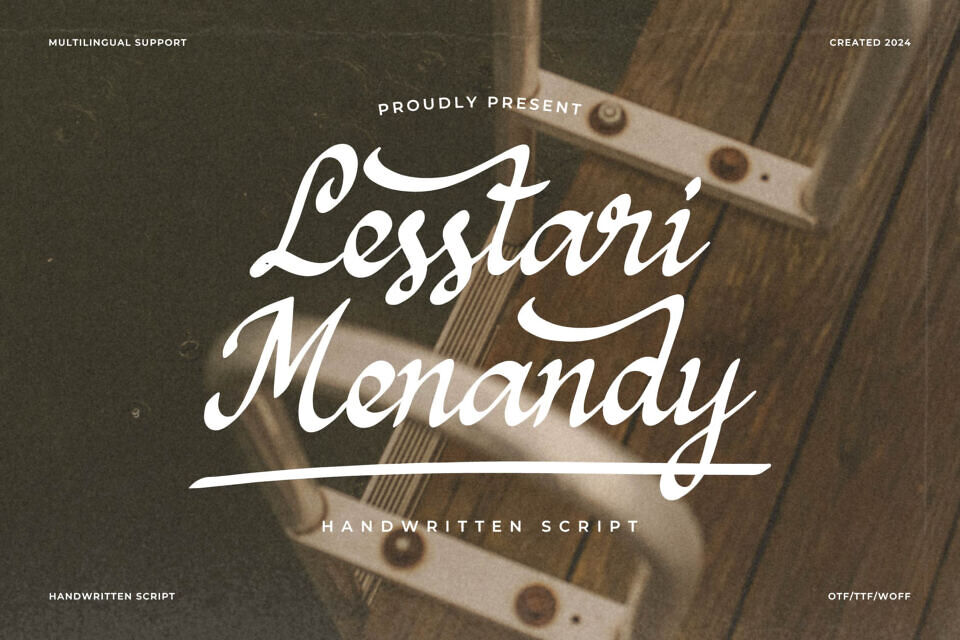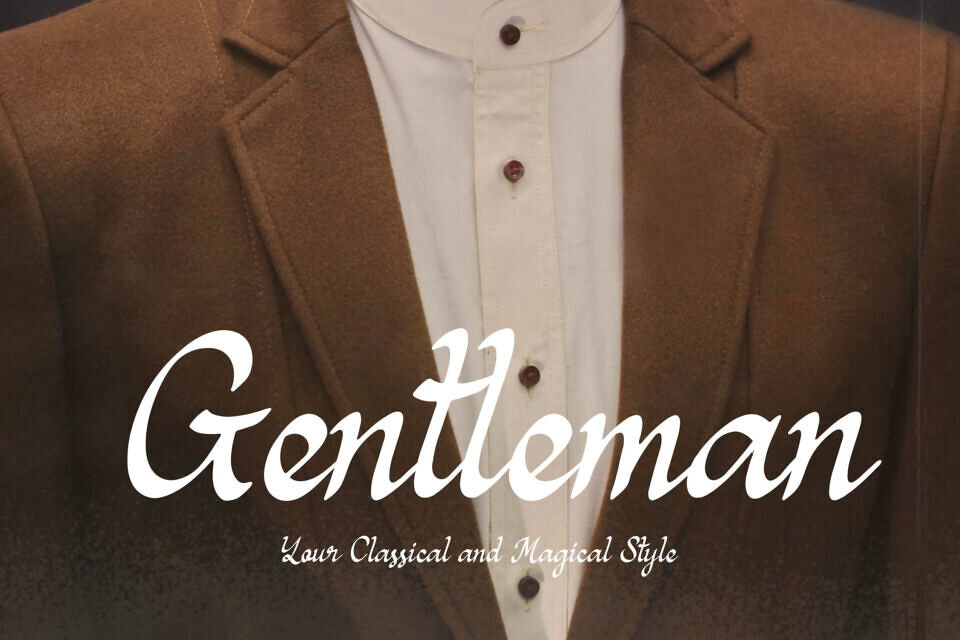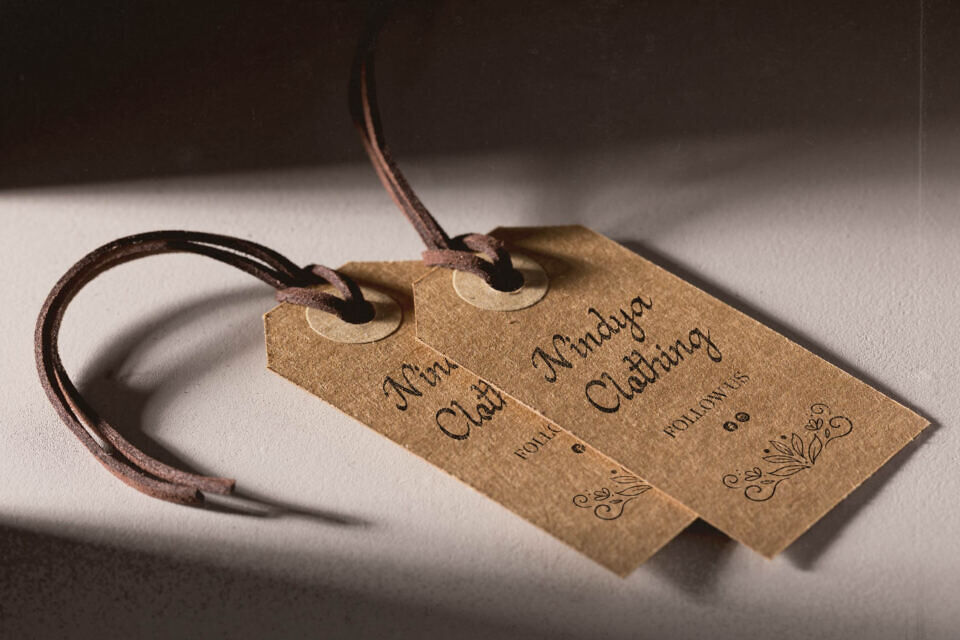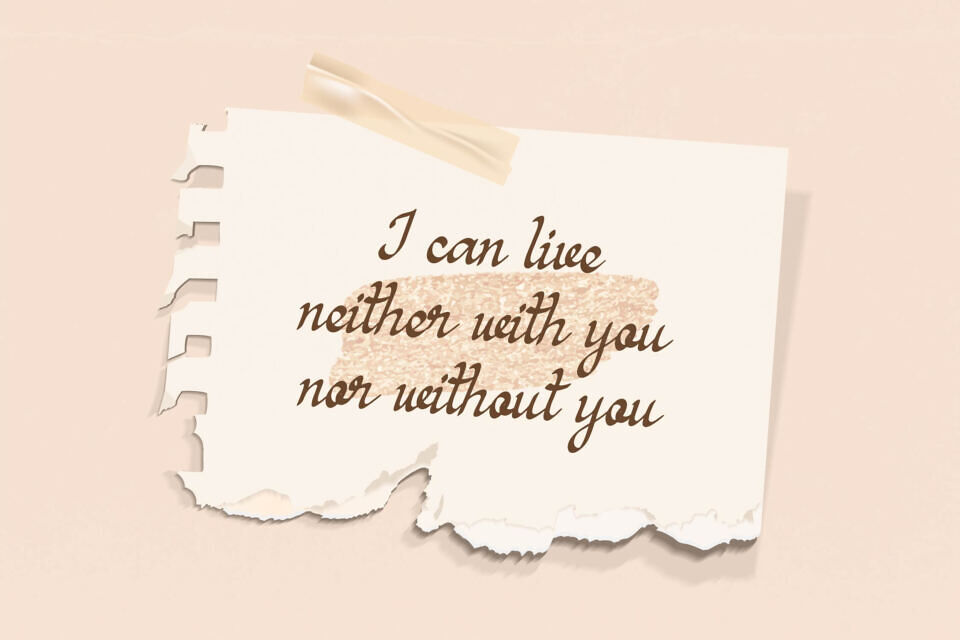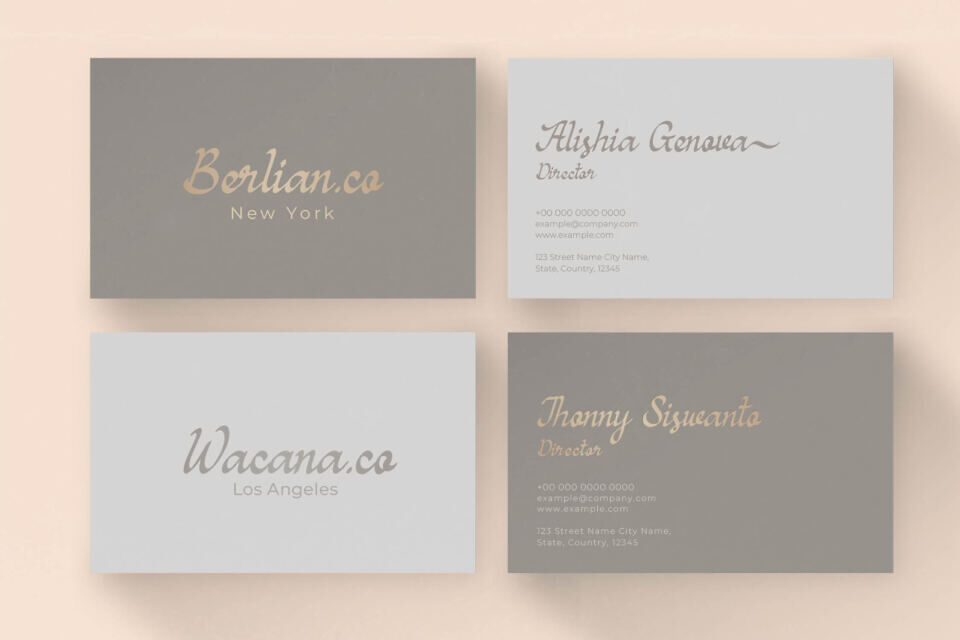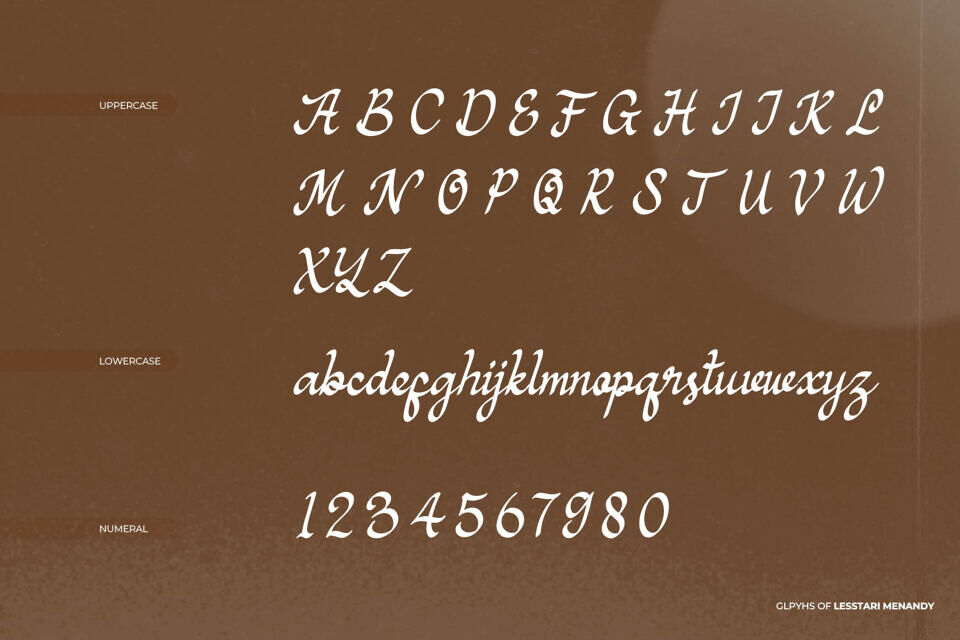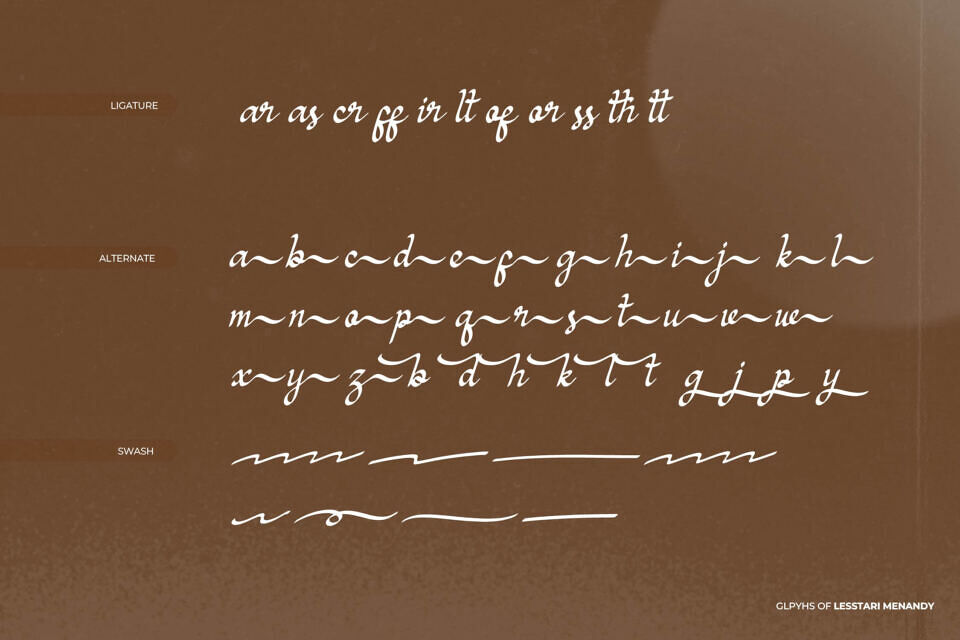
Lesstari Menandy is a beautiful handwritten script font with smooth, flowing letters. It has a casual and elegant style, making it perfect for invitations, logos, greeting cards, or any design that needs a personal touch. The letters look like they were written by hand with care, giving your project a warm and friendly feel.